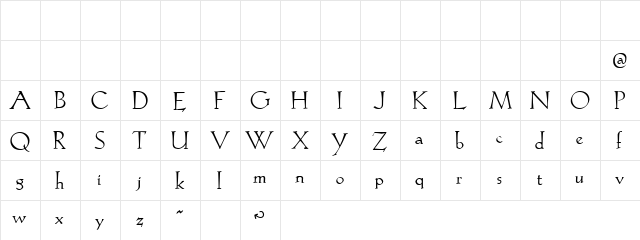
Evadare Demo Regular
Design Context for Evadare Demo Typeface
Evadare Demo offers clean, dependable letterforms without strong stylistic allegiance, making it a practical choice for designers who need flexibility.